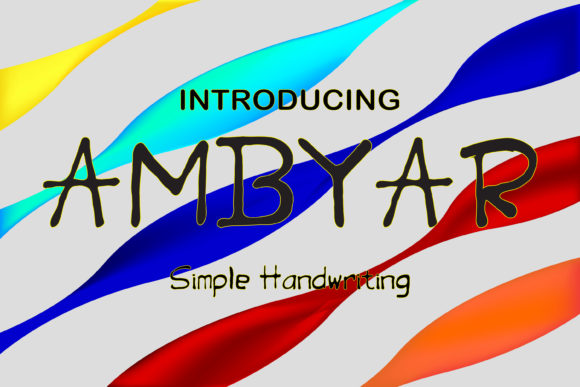
The Ambyar Font: A Quirky Display Font to Elevate Your Designs
I still remember the frustration of working on a project, hours spent searching for the perfect font, only to end up with something that just didn’t quite fit. It was as if the font was trying to do too much or not enough – never quite hitting that sweet spot. But then, I stumbled upon the Ambyar font, and it was like a breath of fresh air. This unique and interesting display font quickly became my go-to for a wide variety of contexts, and I’m excited to share my experience with you.
An Honest Review of Ambyar Font
What I Love About Ambyar Font
• ✨ Unique and quirky design that adds a touch of personality to any project
• ✅ Highly versatile and adaptable to different contexts and themes
• 💡 Excellent for display purposes, such as headings, titles, and logos
• 🎨 Supports a wide range of languages and OpenType features
While Ambyar font is an excellent choice for many projects, there are a few things to keep in mind:
• 🤔 May not be the best choice for body text or long paragraphs, as it can be a bit too ornate
• ⚠️ Some characters may not be suitable for small font sizes, due to their intricate design
The Backstory of Ambyar Font
The Ambyar font was designed with the intention of creating a unique and interesting display font that could add a touch of personality to any project. While the designer’s exact inspiration may be unknown, it’s clear that they aimed to create a font that was both quirky and versatile. The result is a font that works well in a wide range of contexts, from logos and headings to posters and packaging.
Font Name Ambyar Font
Author Mahesa Design
Q: What is Ambyar font best used for?
A: Ambyar font is best used for display purposes, such as headings, titles, and logos. Its unique design makes it well-suited for adding a touch of personality to any project.
Q: Is Ambyar font suitable for body text?
A: While Ambyar font can be used for body text, it may not be the best choice for long paragraphs or small font sizes. Its intricate design may be difficult to read in these contexts.
Q: Does Ambyar font support OpenType features?
A: Yes, Ambyar font supports a range of OpenType features, including ligatures, stylistic alternates, and glyphs. These features can be accessed in compatible design software, such as Adobe Photoshop and Illustrator.